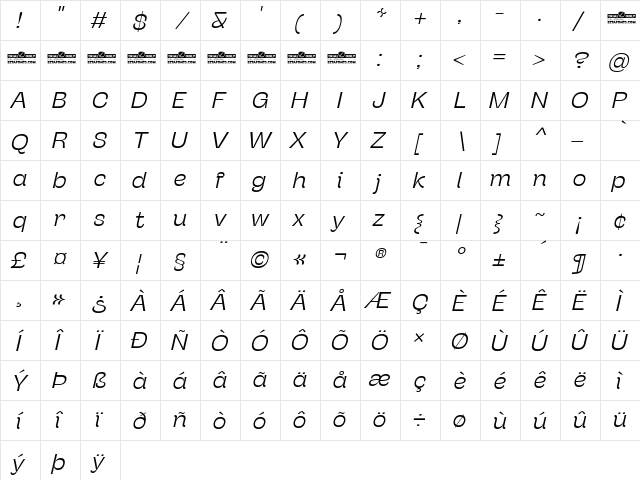
Stinger Fit Trial Light Italic
| Foundry | Studio Kmzero & Zetafonts |
| Designer | Cosimo Lorenzo Pancini |
Design Context for Stinger Fit Trial Typeface
Stinger Fit Trial takes a measured approach to typography — its balanced proportions and neutral character make it a reliable workhorse for both digital and print work. Its italic angle brings a sense of urgency and motion to the letterforms. The delicate stroke weight brings airiness and refinement to layouts.
Pro Tip: Try Stinger Fit Trial for annotation and caption copy alongside an upright companion — the contrast in angle creates a dynamic but ordered typographic system.